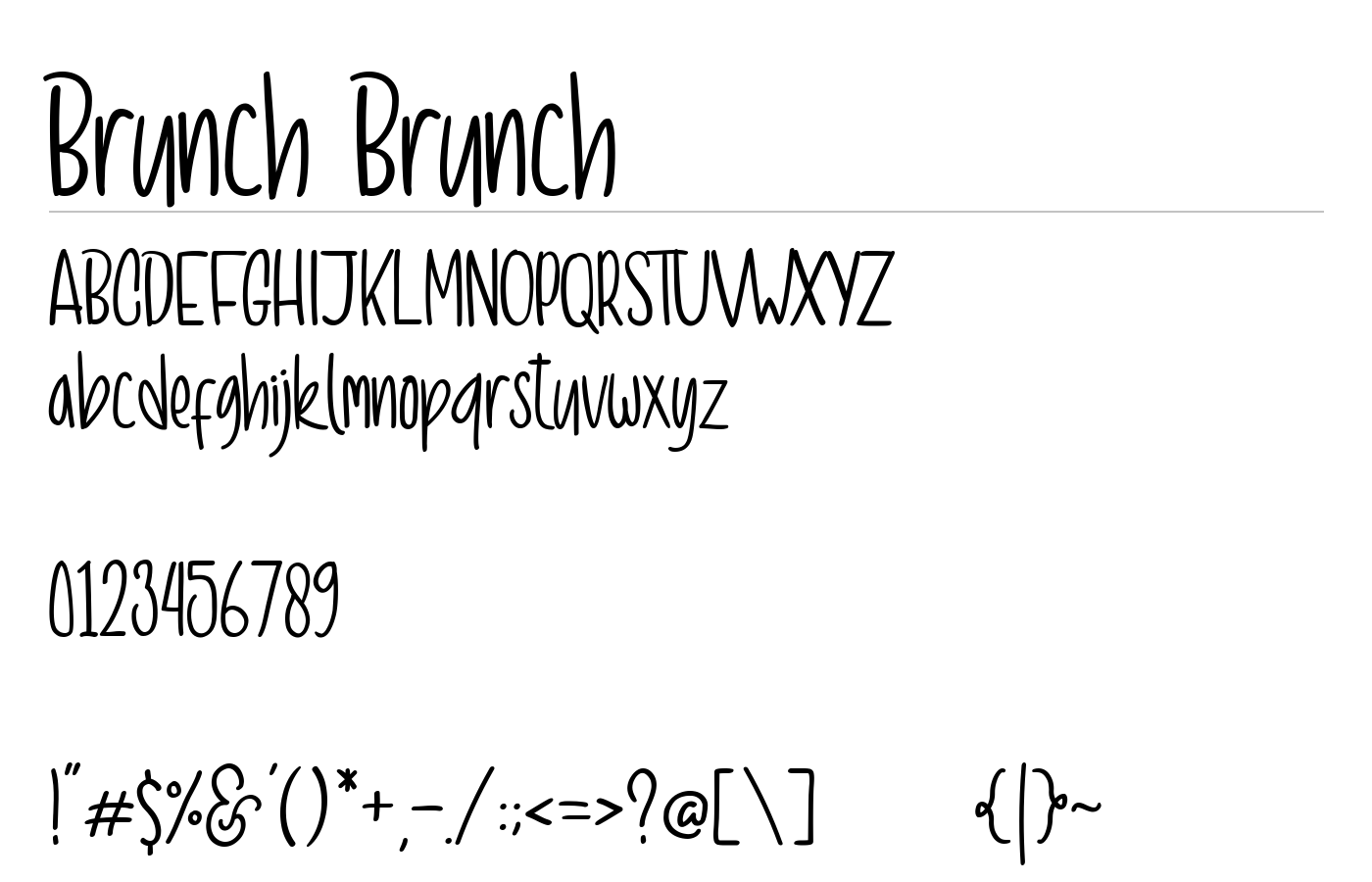
Brunch Brunch is a playful, hand-drawn sans serif font with tall, narrow letterforms and a casual, friendly feel. Its slender strokes and slightly irregular shapes give it an approachable, informal style perfect for creative projects, kids' designs, or casual branding. This font works best for headlines, logos, and invitations where a warm, personal touch is desired.
Brunch Brunch Font